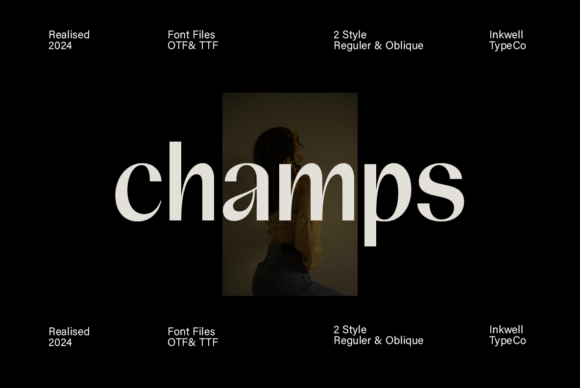
Introducing Champs Font: The Ultimate Sans Serif for Impactful Visuals
In the world of typography, fonts play a crucial role in conveying messages, expressing emotions, and creating lasting impressions. Among the myriad of fonts available, Champs Font stands out as a distinctive sans serif font designed specifically for impactful visuals. With its modern and sophisticated feel, Champs is perfect for designers looking to elevate their projects with a unique and elegant touch.
The Design Philosophy of Champs Font
Champs Font is the brainchild of meticulous design and a deep understanding of typographic excellence. Its clean lines and subtle curved edges give it a distinctive appearance that sets it apart from other sans serif fonts. The design philosophy behind Champs revolves around creating a font that exudes elegance, sophistication, and a modern aesthetic appeal. This makes Champs an ideal choice for projects that demand a high level of visual sophistication, such as logos, posters, and high-end brand advertisements.
Key Features of Champs Font
- Modern and Sophisticated Feel: Champs Font is crafted to provide a contemporary look that aligns with modern design trends. Its sophisticated feel makes it suitable for premium brands and high-impact visuals.
- Clean Lines and Subtle Curves: The font features clean lines that ensure clarity and readability, complemented by subtle curved edges that add a touch of elegance and softness.
- Versatility: Champs Font comes in multiple weights, offering designers the flexibility to use it across various design projects, from headlines to body text, without compromising on style or readability.
- Multilingual Support: Understanding the global nature of design, Champs Font supports multiple languages, making it a versatile tool for international design projects.
Use Cases for Champs Font
Champs Font’s unique blend of modernity, elegance, and readability makes it suitable for a wide range of design applications. Here are some of the ideal use cases for Champs:
- Logos and Branding: The distinctive and sophisticated look of Champs Font makes it an excellent choice for logos and brand identities that aim to convey a sense of modernity and elegance.
- Posters and Flyers: For print materials like posters and flyers, Champs Font can be used to create striking headlines and content that capture attention and communicate messages effectively.
- Digital Media: In digital media, including websites, mobile apps, and digital advertisements, Champs Font can enhance user experience with its clean and readable design.
- Marketing and Advertising: The font’s impact and elegance make it suitable for marketing and advertising materials where making a strong visual impact is crucial.
Benefits of Using Champs Font
Choosing Champs Font for your design projects comes with several benefits that can elevate your work:
- Enhanced Readability: Despite its elegant and subtle design, Champs Font maintains high readability, ensuring that your message is communicated effectively.
- Unique Style: The font’s distinctive appearance helps your designs stand out in a crowded visual landscape.
- Versatility: With multiple weights and language support, Champs Font offers the versatility needed for a wide range of design projects.
- Professionalism: The modern and sophisticated feel of Champs Font adds a level of professionalism to your designs, making it suitable for high-end clients and projects.
How to Use Champs Font Effectively
To maximize the impact of Champs Font, consider the following tips:
- Pair with Complementary Fonts: When combining Champs Font with other fonts, choose fonts that complement its modern and elegant feel. A pairing with serif fonts can create a striking contrast.
- Adjust Weight and Size: Experiment with different weights and sizes to create visual hierarchy and emphasize key messages.
- Consider Line Spacing: Ensure adequate line spacing to enhance readability, especially in body text.
- Utilize White Space: Don’t underestimate the power of white space. It can enhance the elegance of Champs Font and improve the overall readability of your design.
Champs Font is a powerful tool for designers looking to create impactful visuals with a modern and sophisticated touch. Its unique design, versatility, and support for multiple languages make it an excellent choice for a variety of design projects. Whether you’re working on a logo, poster, or digital media, Champs Font offers the elegance, clarity, and professionalism needed to make your designs stand out. Embrace Champs Font in your next project and experience the difference it can make in elevating your visual creations.